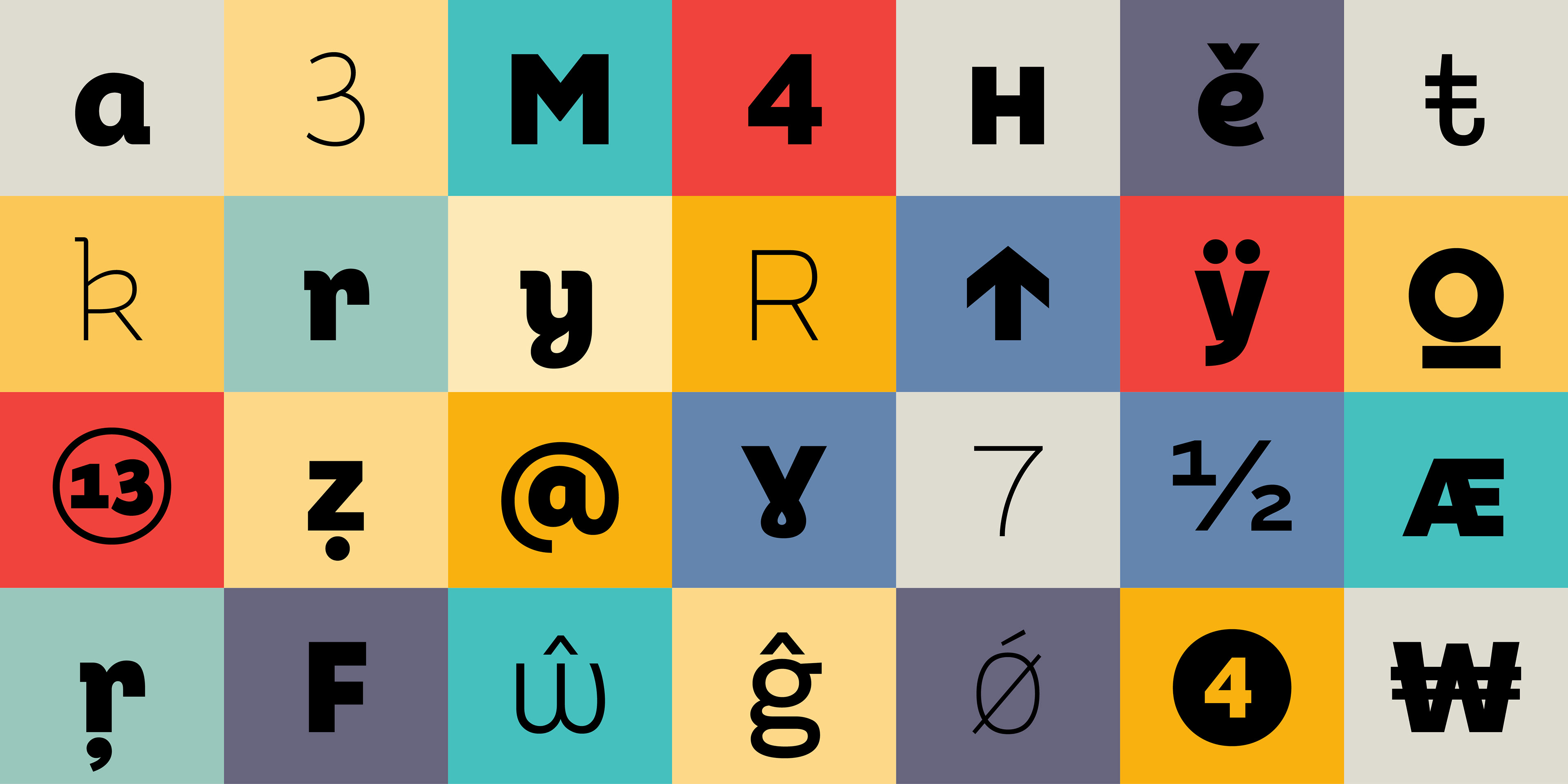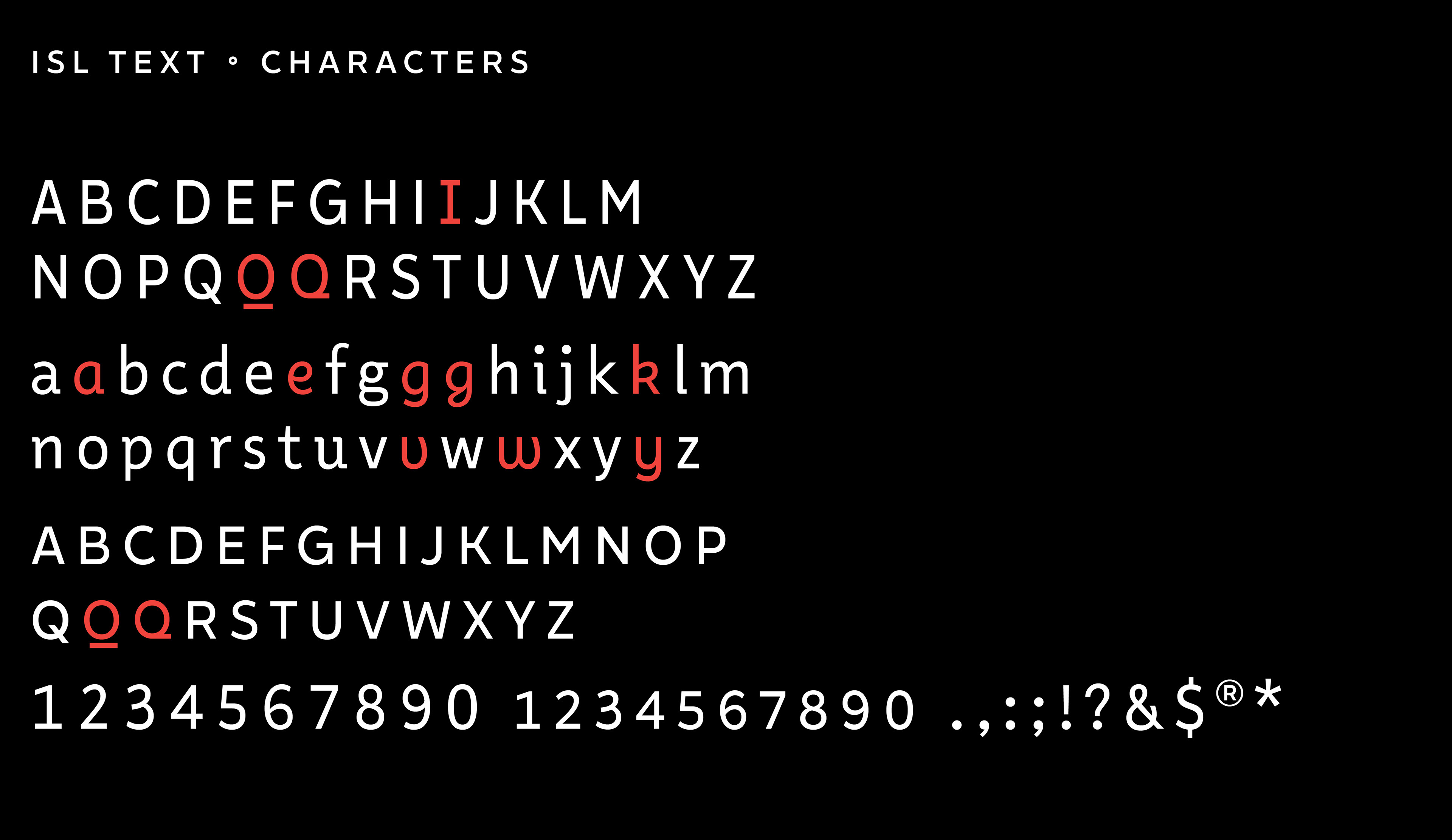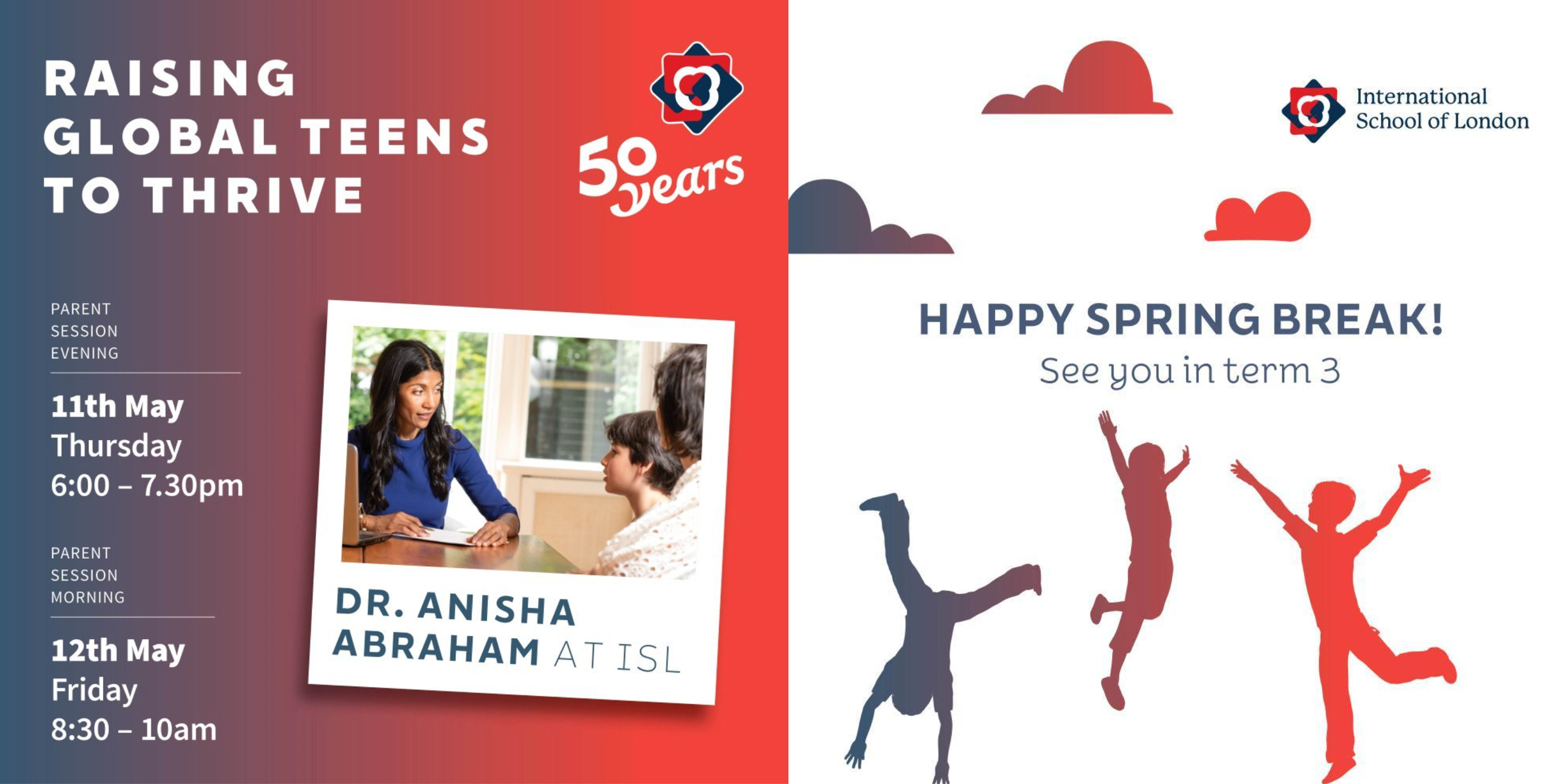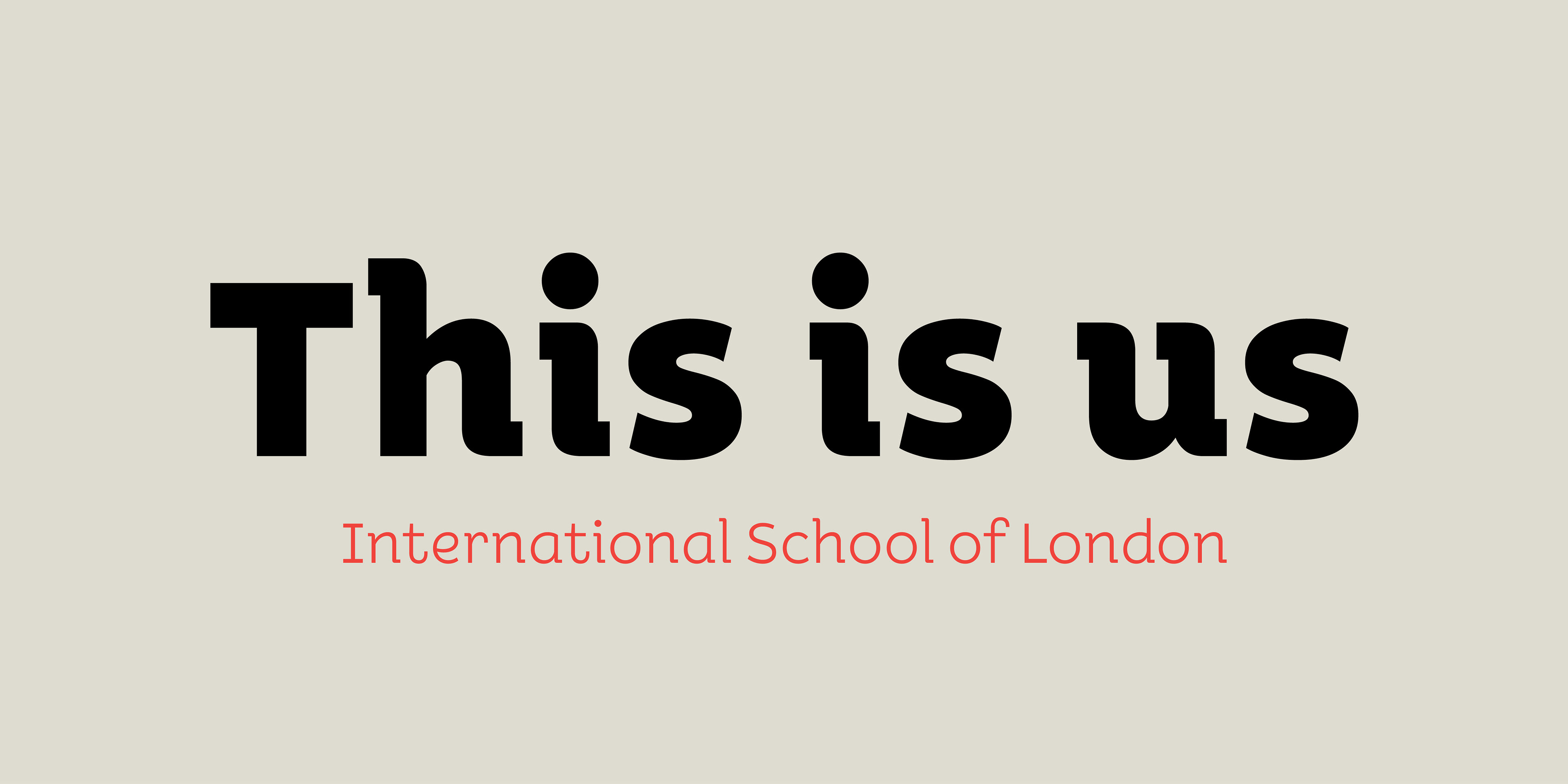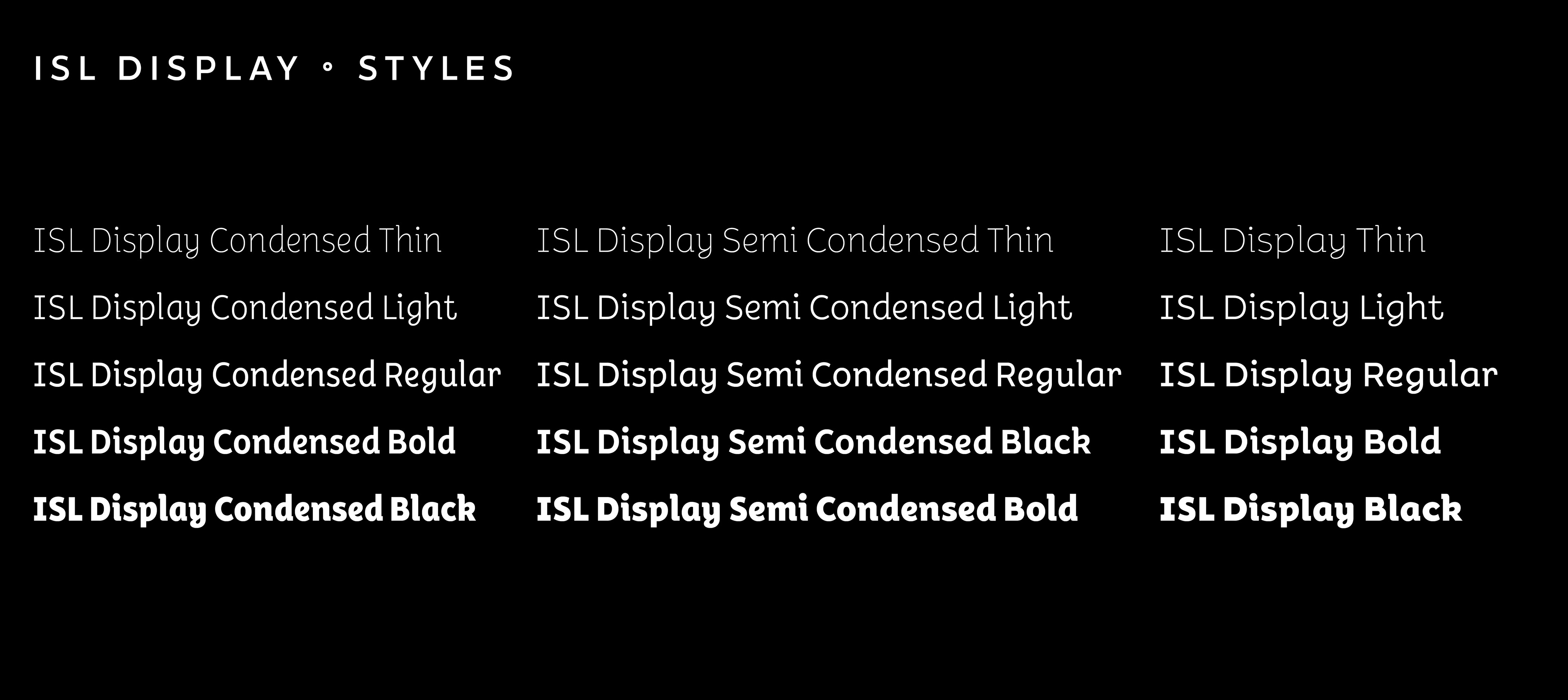
The International School of London (ISL) operates campuses in both London and Qatar, offering an International Baccalaureate (IB) curriculum.
During my time on the communications team at ISL Qatar, the Head of Design, Juliana Altoé, proposed the idea of unifying the visual identity of both campuses while allowing for flexibility in design to accommodate each location’s unique needs.
Juliana and I collaborated on the concept of creating a custom typeface that could serve as a cohesive design element, while still enabling each campus to retain its distinct color palette and graphic language.
We developed the typeface in two variations: one for display use and one for body text, each tailored to meet specific functional requirements. Since the school uses Microsoft Office as its primary platform, we also created versions of the typeface for Office applications, ensuring it was easily accessible to both teachers and students.
Our starting point was to thoroughly review the visual elements from both campuses to identify a common thread. We quickly found that both schools shared a similar front-facing style, particularly in the way the text “International School of London” appeared daily to students, staff, and visitors. Among the various design features, we identified two distinctive elements in the lettering: the unique style of the “t” and the “r”, which stood out as particularly characteristic. These forms became a key inspiration for the development of our custom typeface, we called it the “umbrella t”.
The typeface was developed to attend all latin based languages teached at the school, including Arabic latinization. It has almost 1900 glyphs, including arrows and circled numbers.